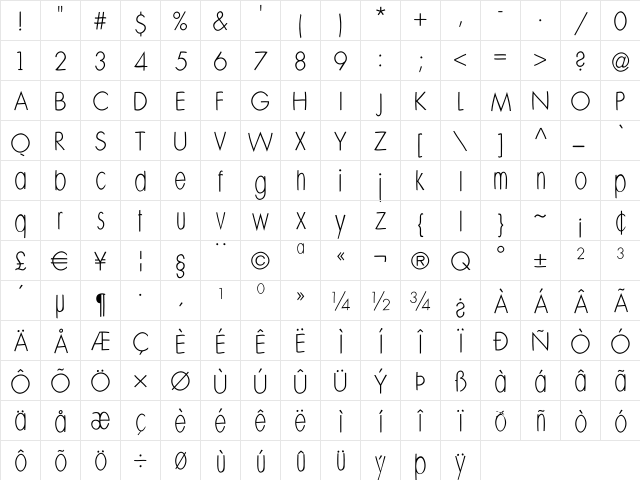
Pastfuturum Regular
Design Context for Pastfuturum Typeface
Pastfuturum has a distinctly futuristic character, with geometric precision and clean angles that feel at home in technology, gaming, and sci-fi contexts.
Pro Tip: Try Pastfuturum with generous letter-spacing in UI labels and navigation — the geometric forms benefit from room to breathe.